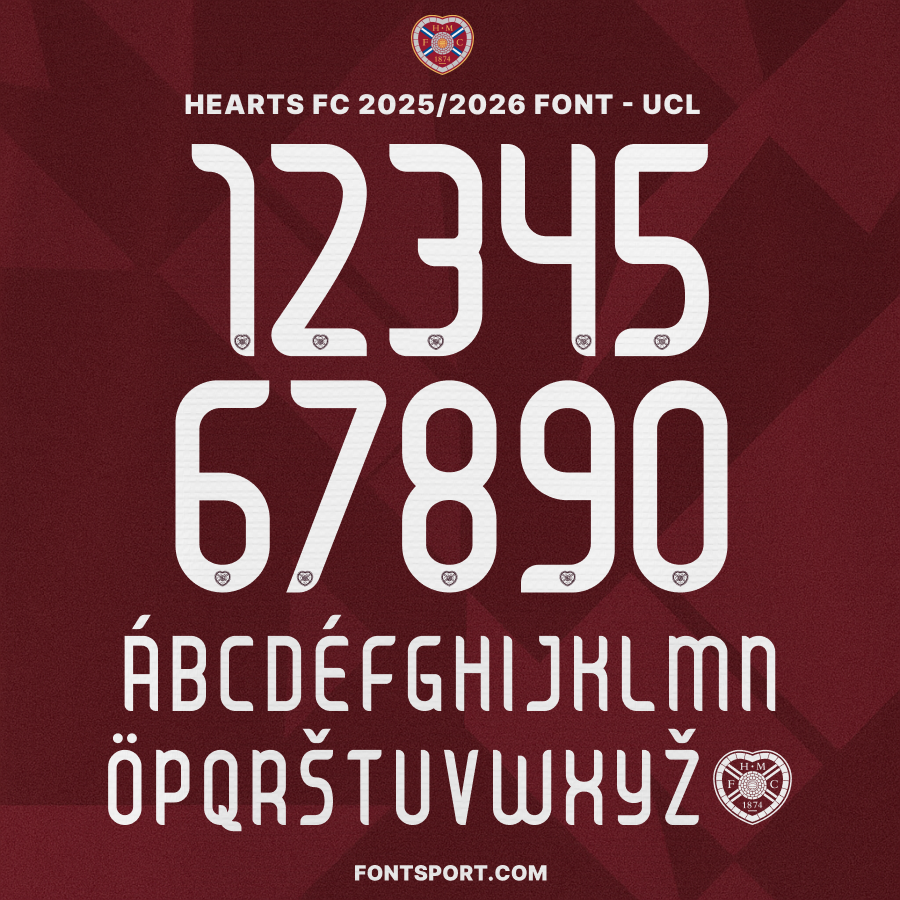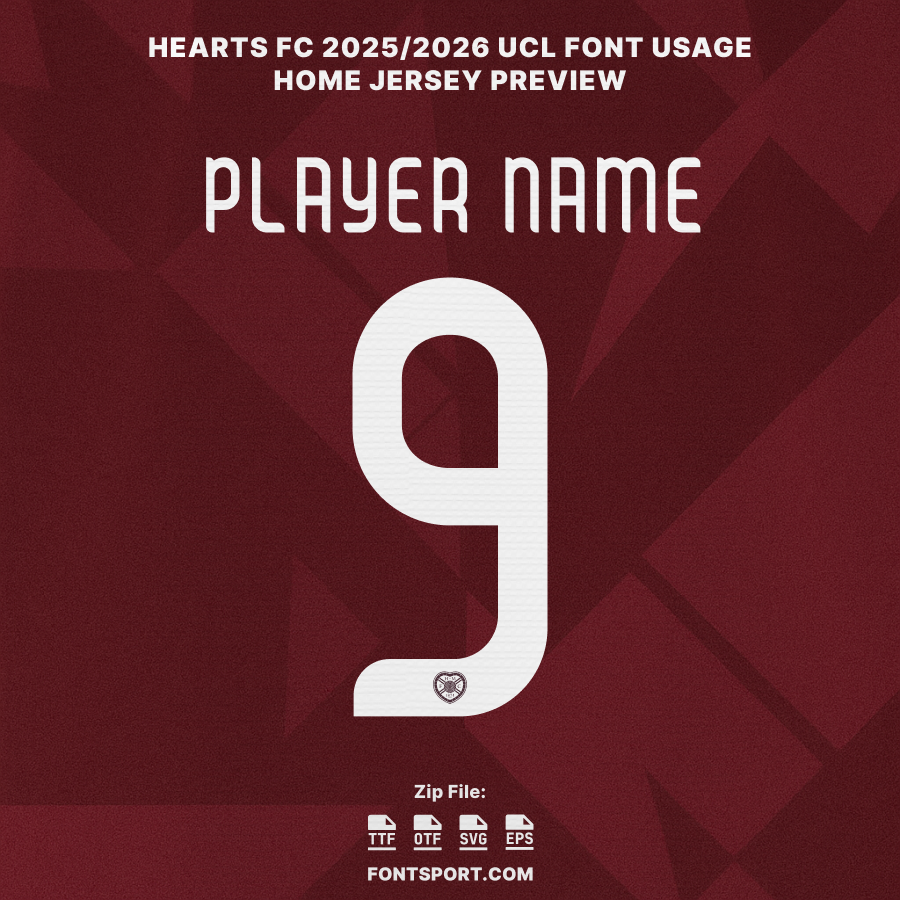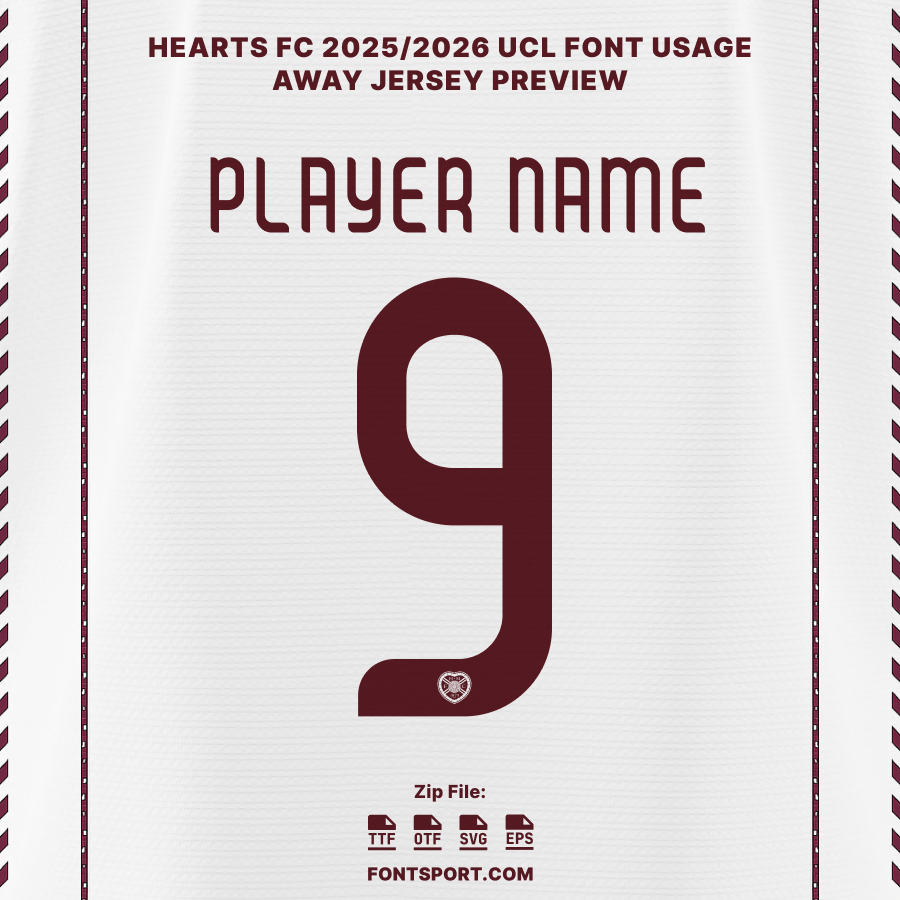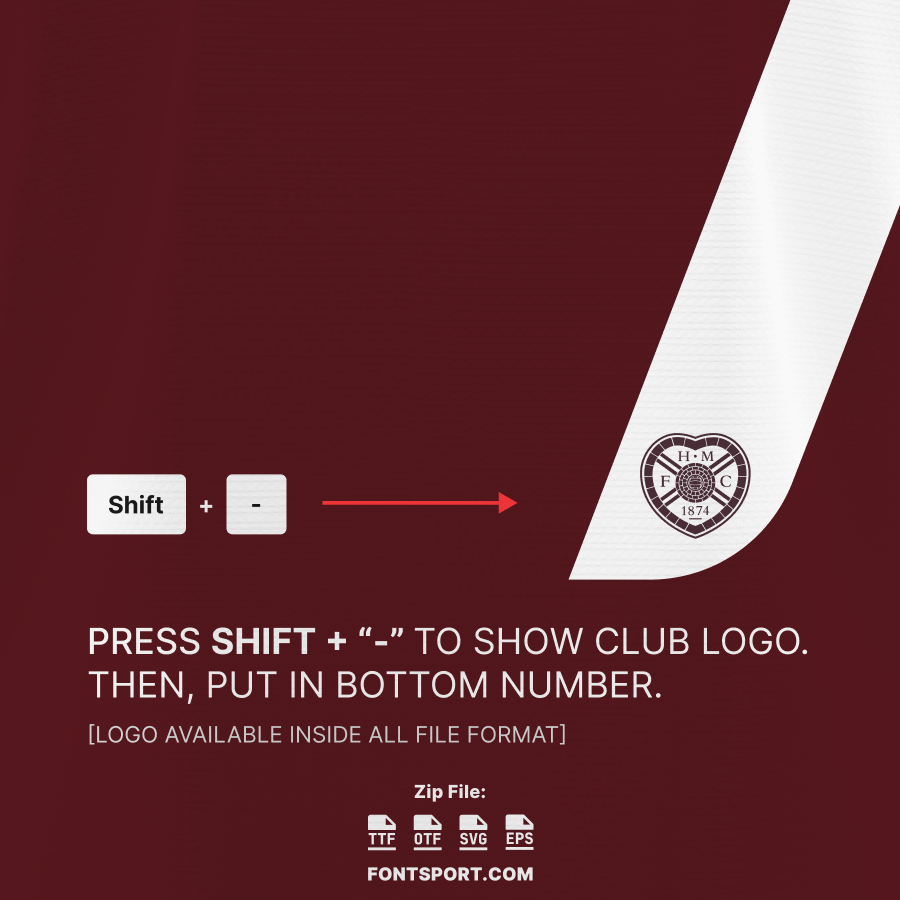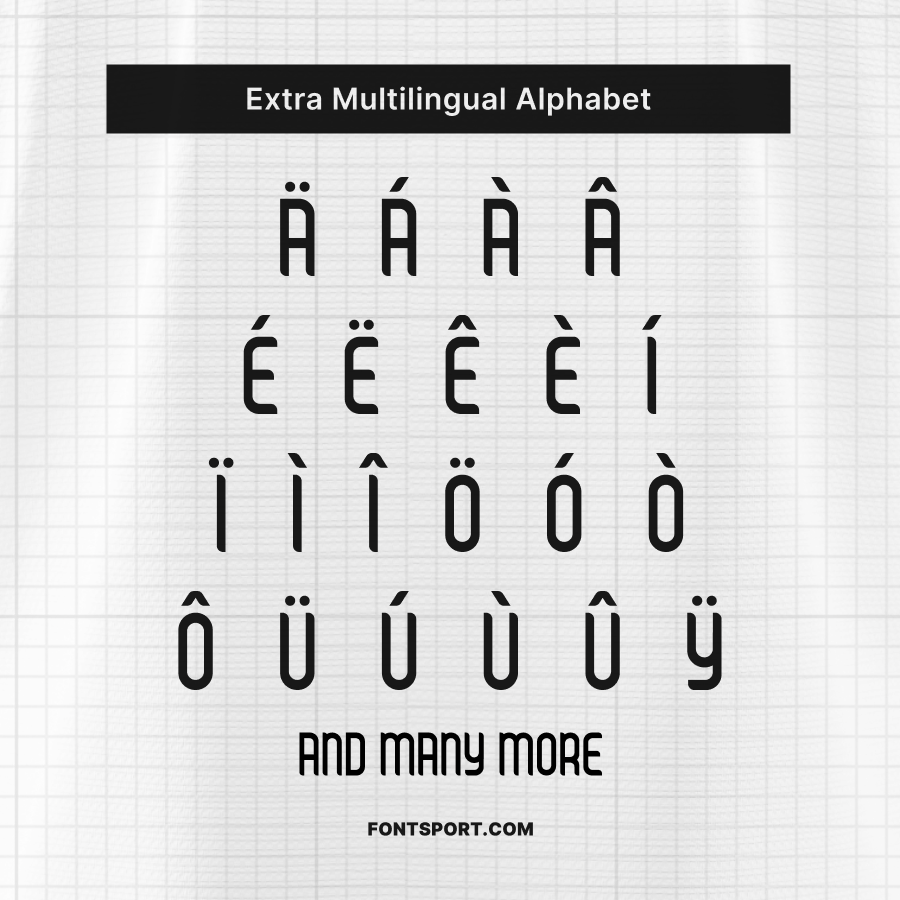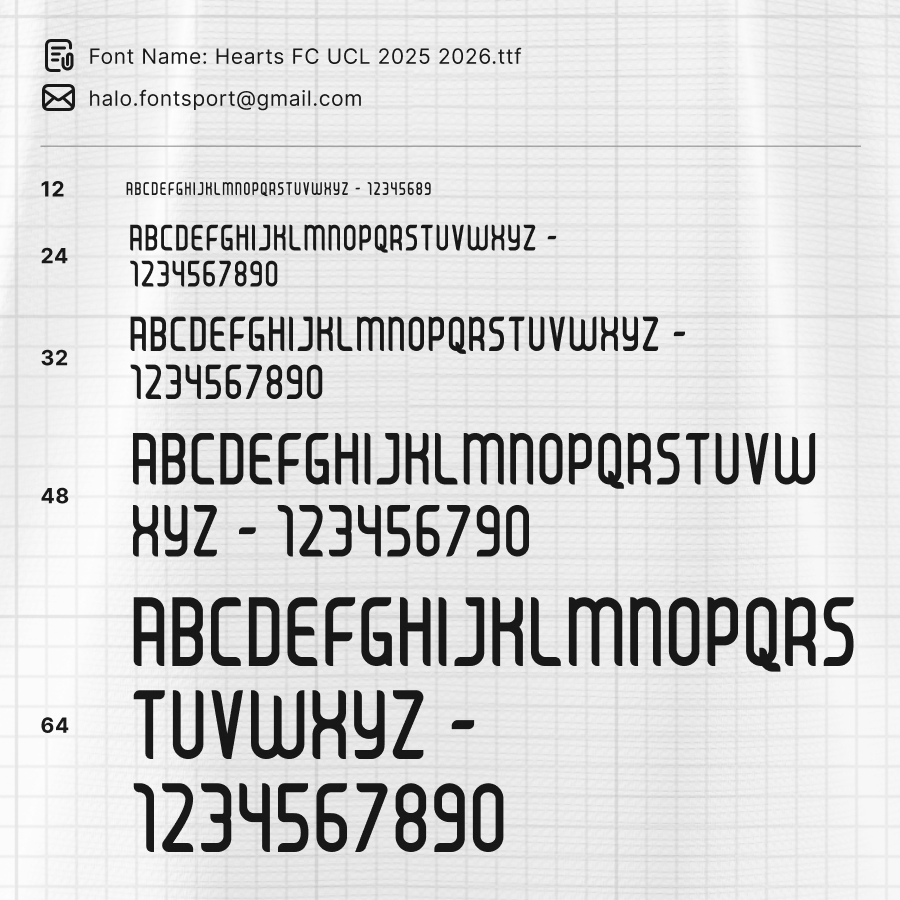
Hearts FC UCL 2025/2026 Font Kit – UEFA Champions League Typeface Inspired
The Hearts FC UCL 2025/2026 Font Kit captures the refined, modern aesthetic worn by Hearts during their UEFA Champions League campaign. Built for clarity on the pitch and standout presence in European nights, this typeface offers bold letterforms, sharp geometric lines, and a clean UCL-inspired silhouette.
Whether you’re a fan creating custom jerseys or a designer building premium match graphics, this font provides a level of authenticity that mirrors the European stage.
Key Visual Identity of the Font
Sleek UCL-style lettering with professional readability
Clean numerals with balanced stroke weight
Designed for kit mockups, posters, motion graphics, and fan artworks
🏆 Includes crest glyphs for full club identity styling
Hearts FC in the 2025/2026 European Season
The 2025/2026 campaign marks an ambitious European chapter for Hearts FC. With key players stepping up on the continental stage and the club bringing its identity to the UEFA Champions League nights, the kit design plays an important role in telling that story.
This font kit reflects that identity—bold, modern, and unmistakably Hearts—giving fans and creators a piece of the club’s European journey.